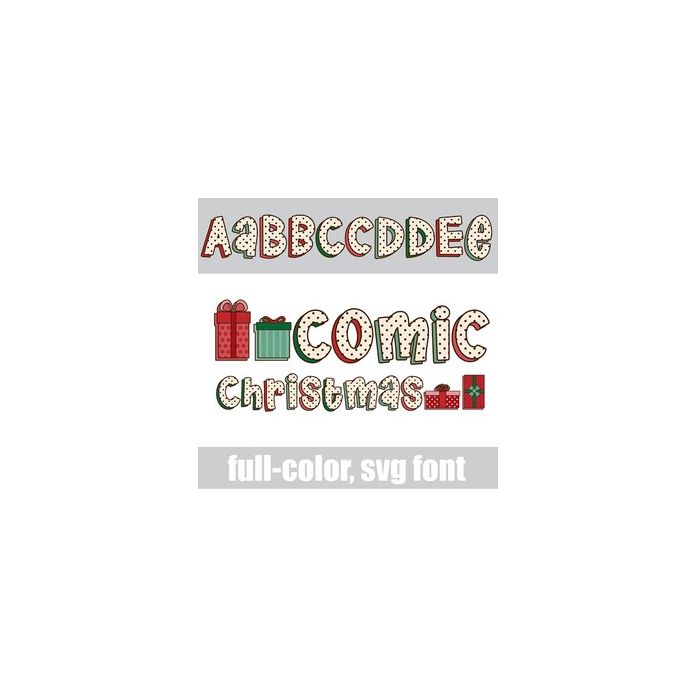
This full-color font features a comic-style font in a Christmas color palette. There are presents you can access by typing the greater than and less than glyphs. There is an alt case w/ additional colors you can access through your system or Silhouette's glyph map.